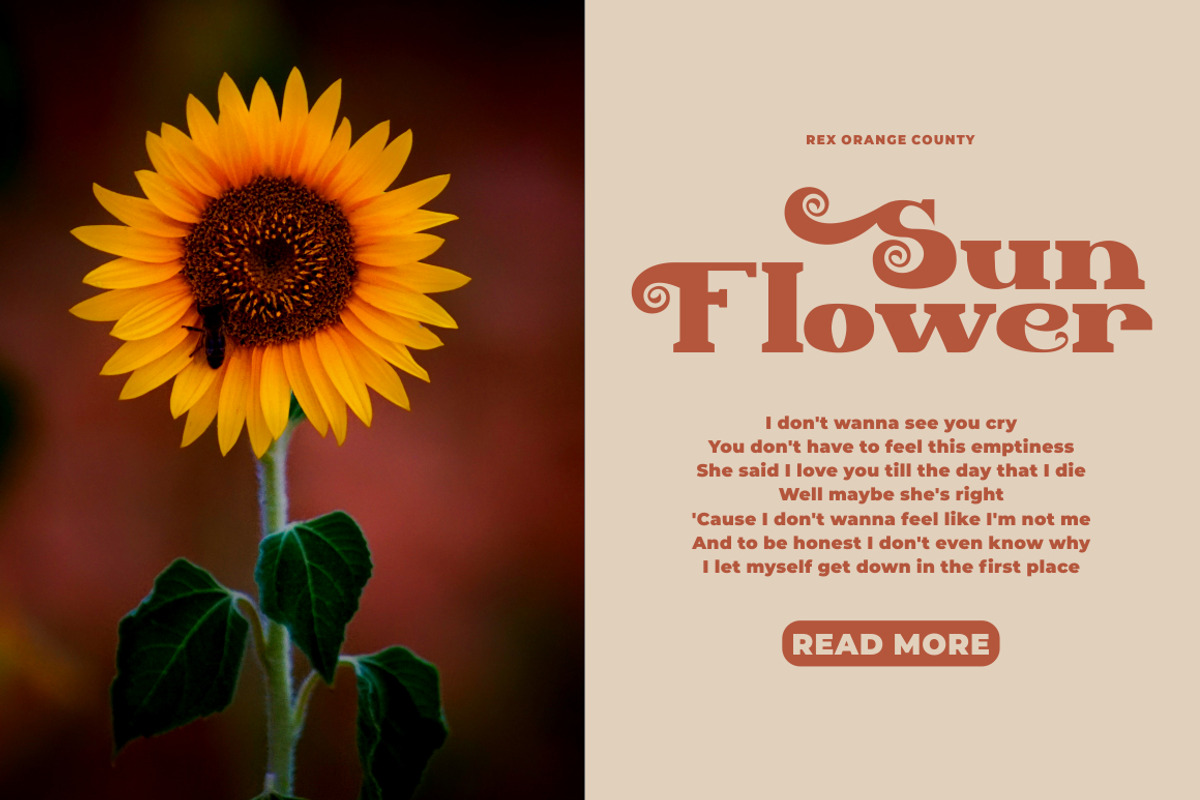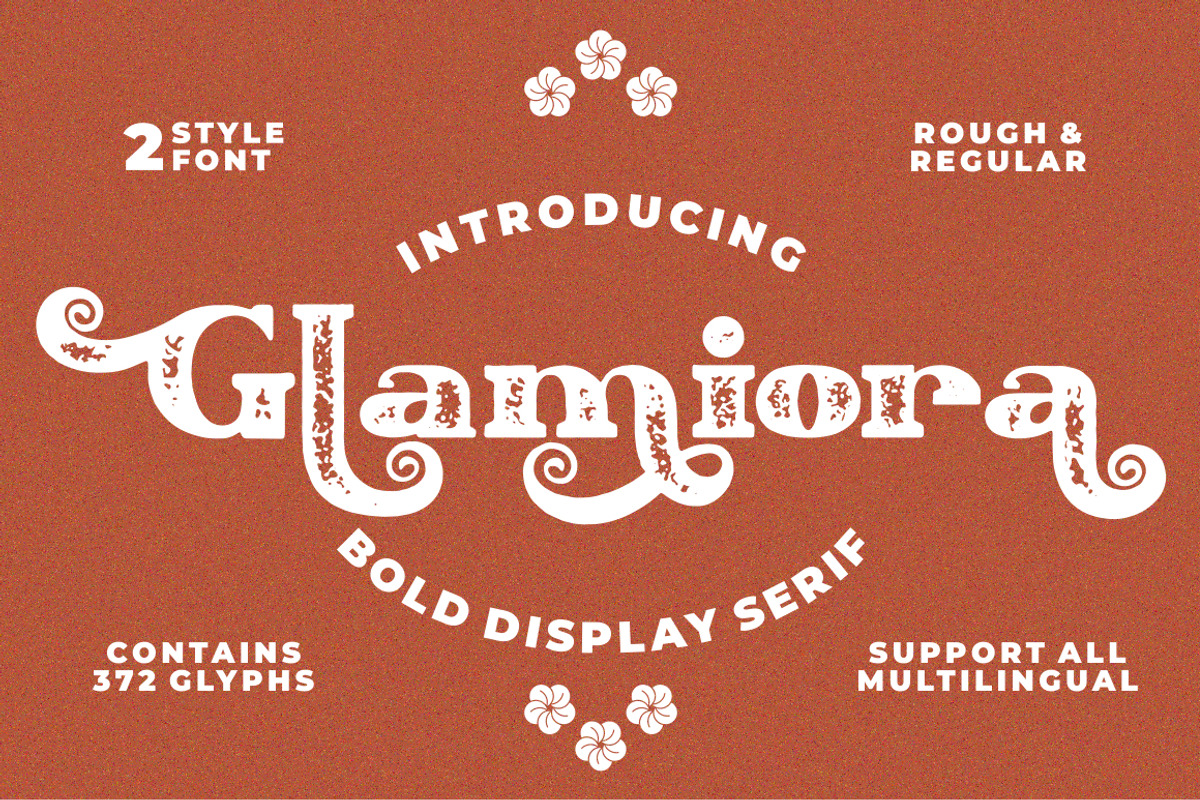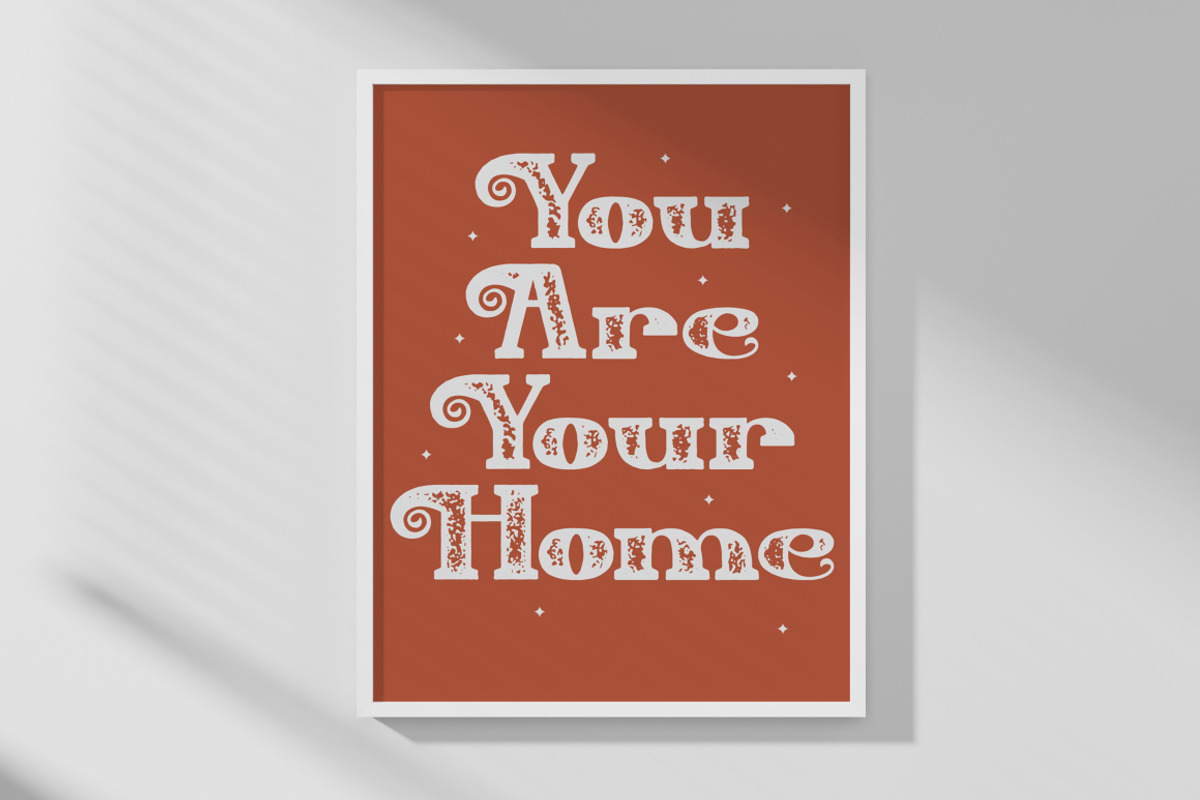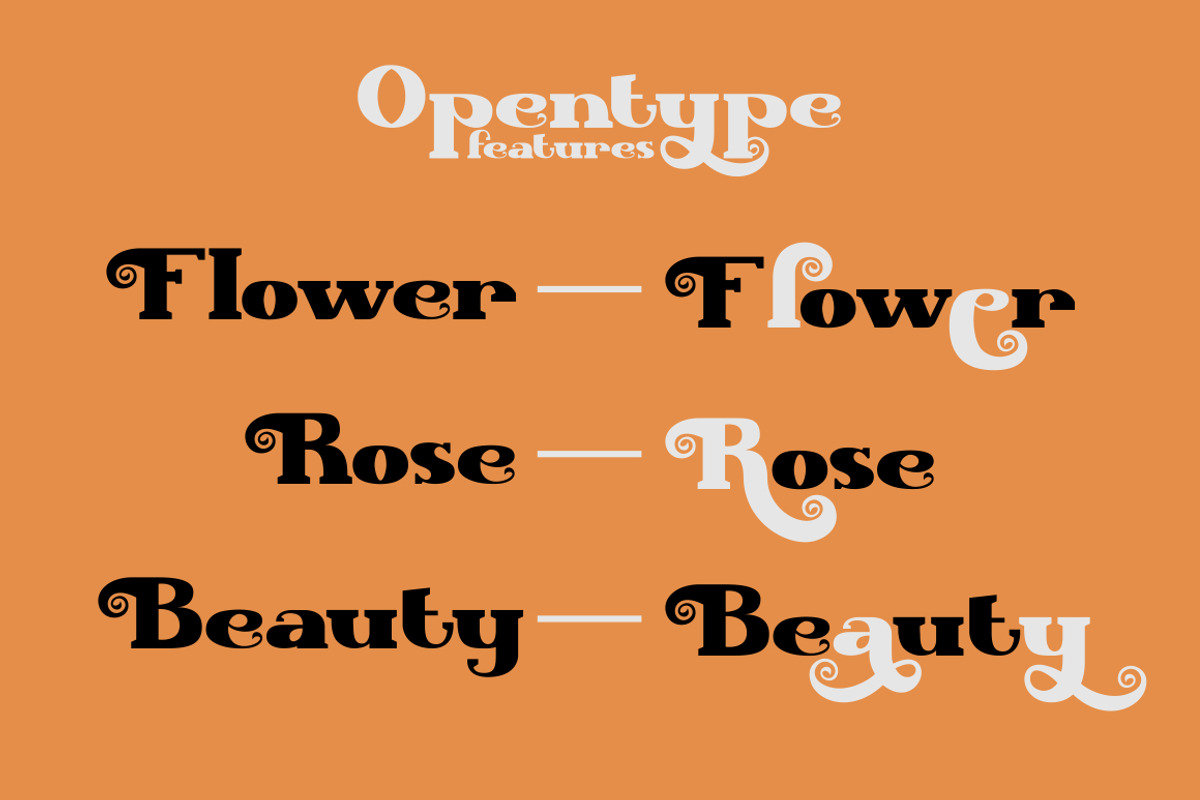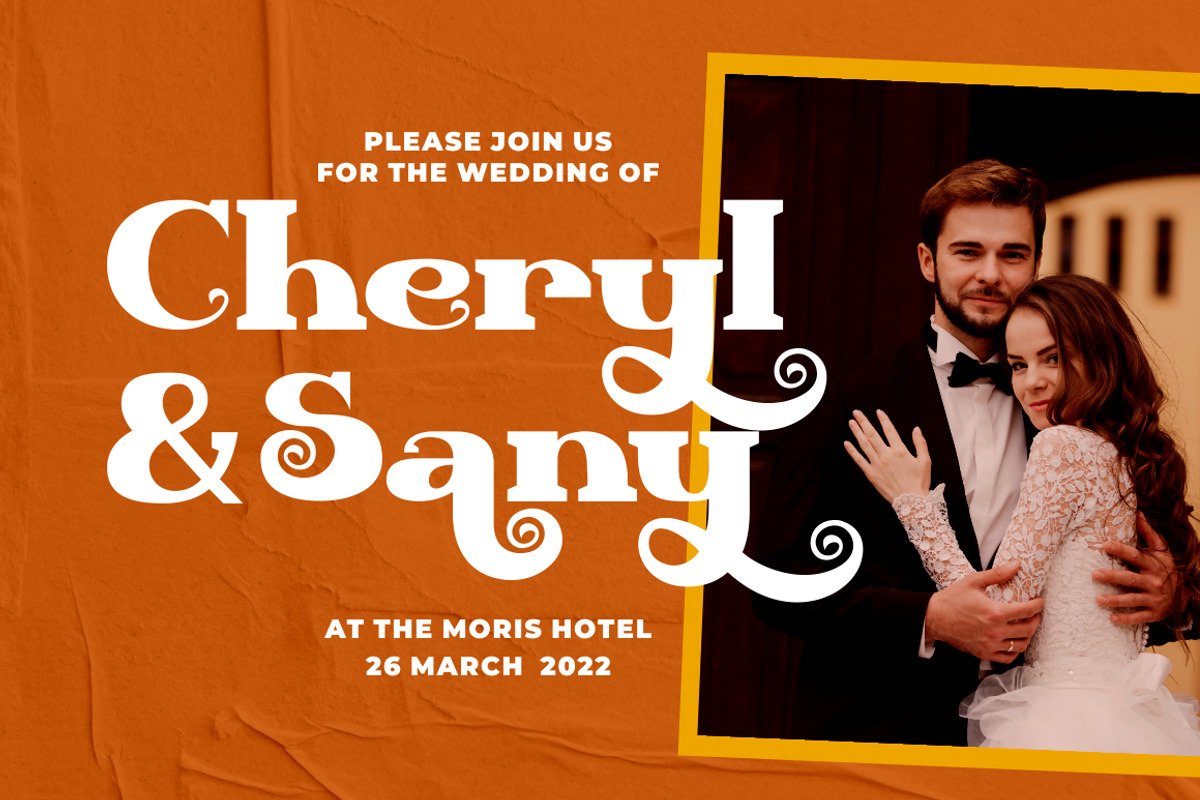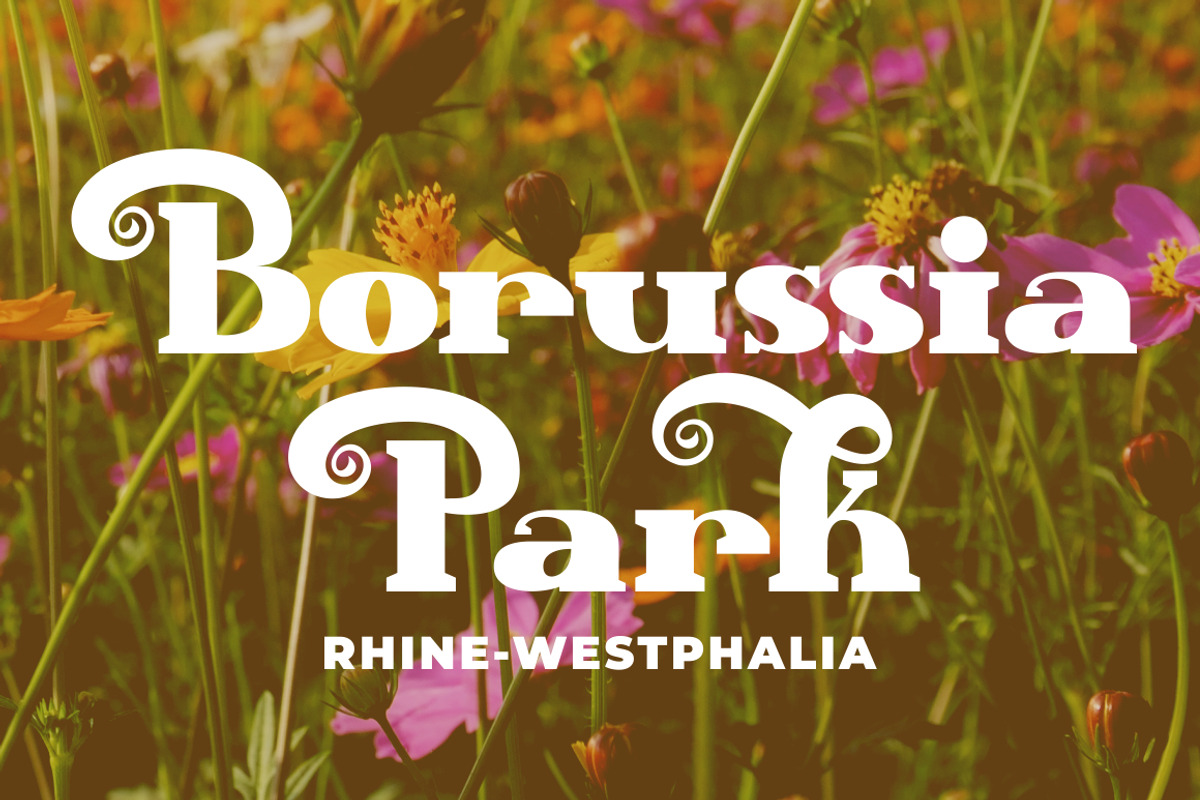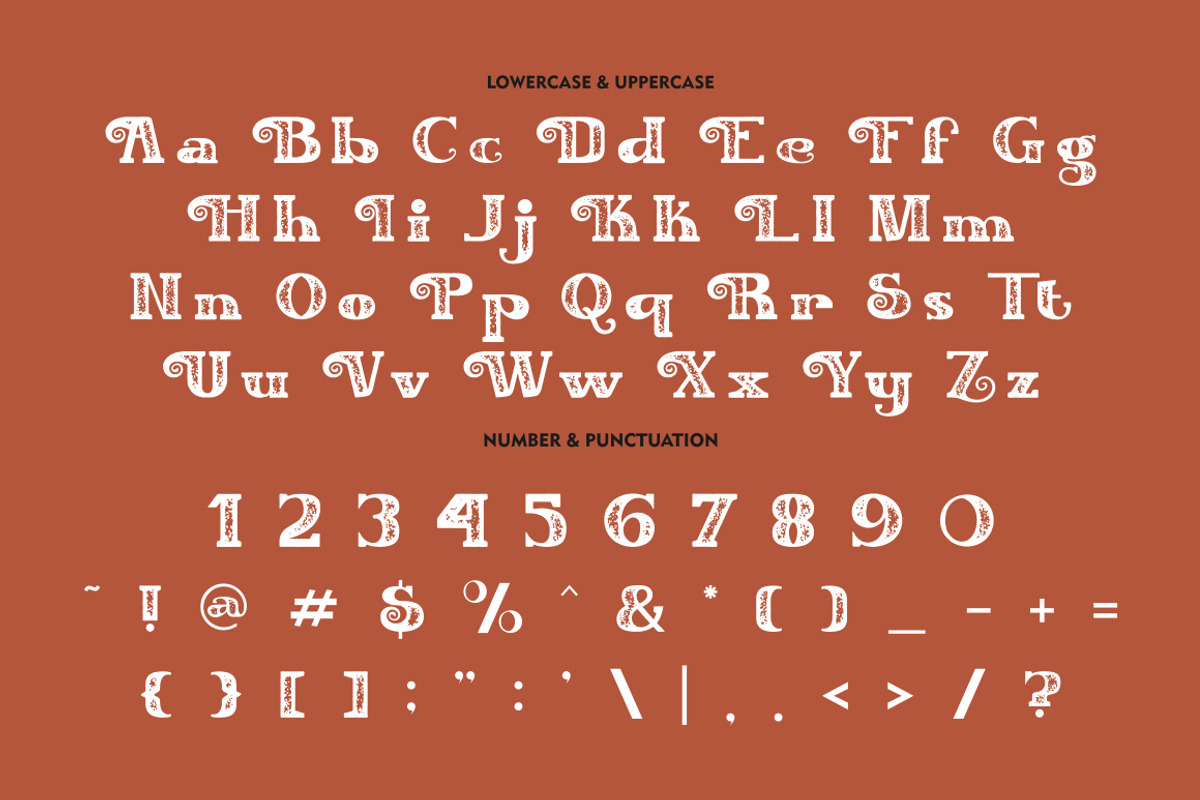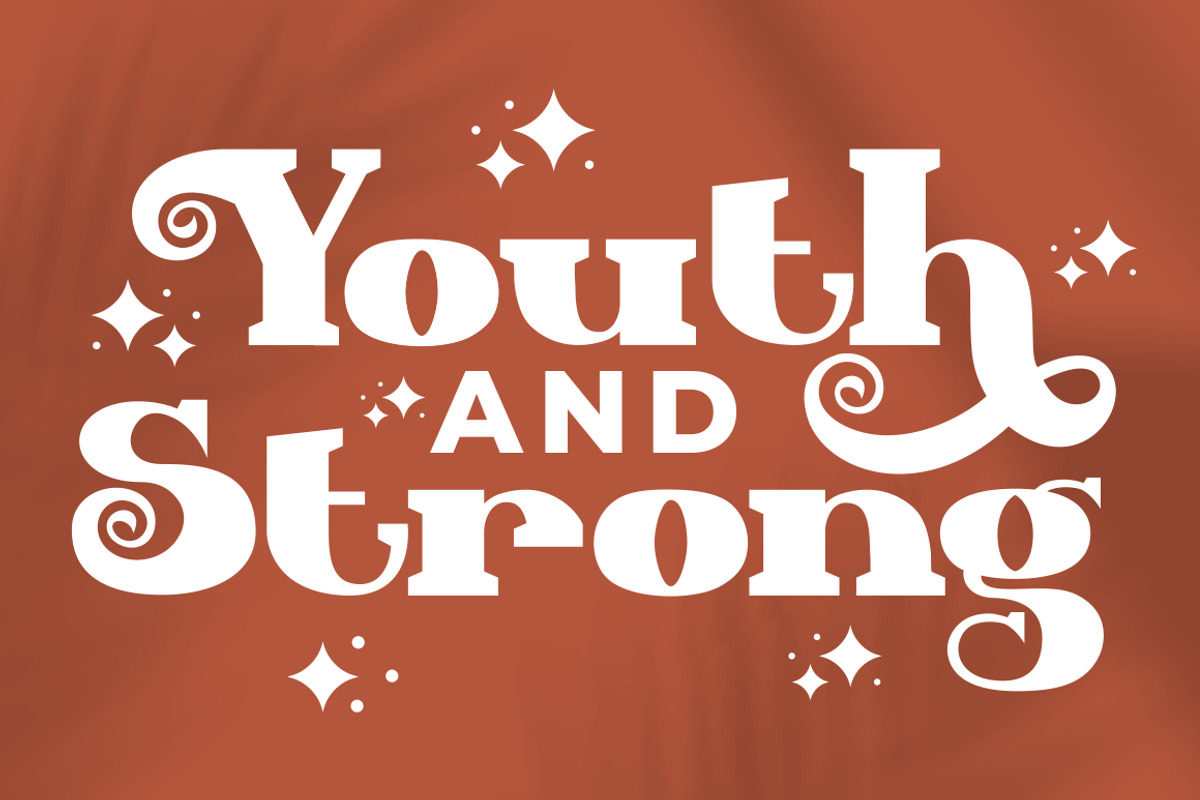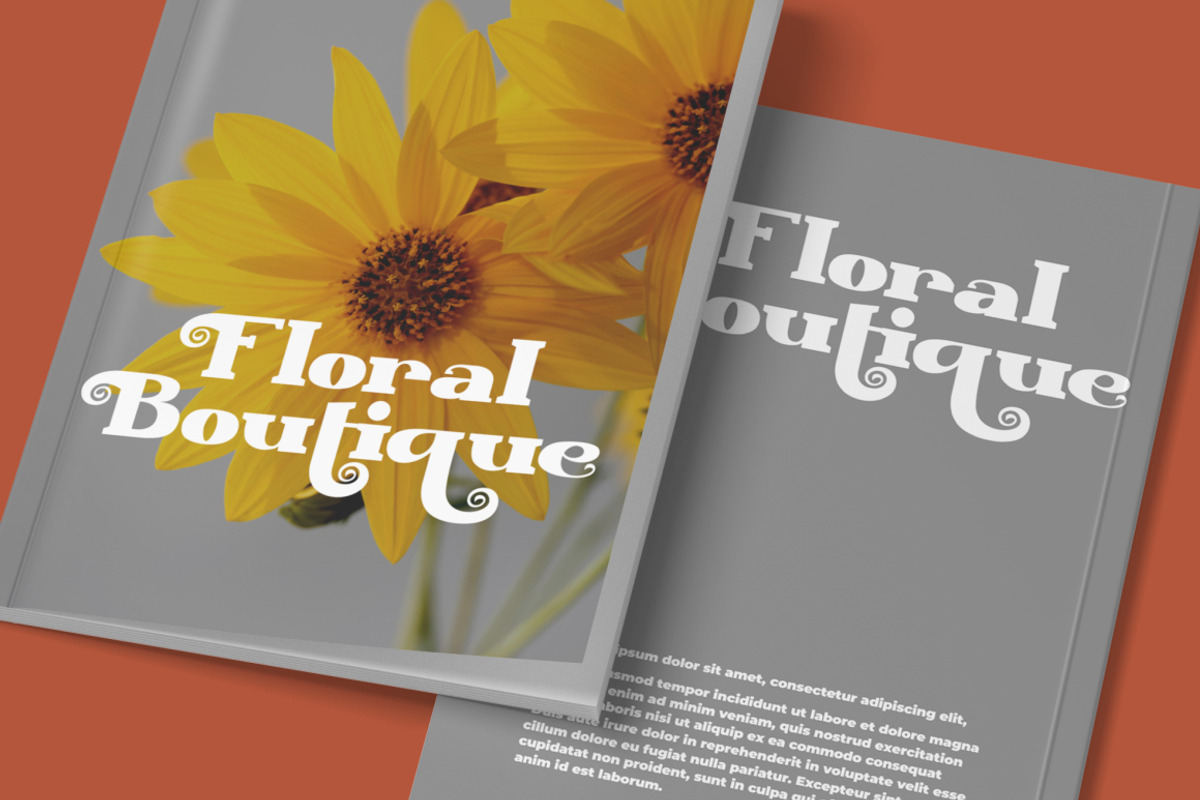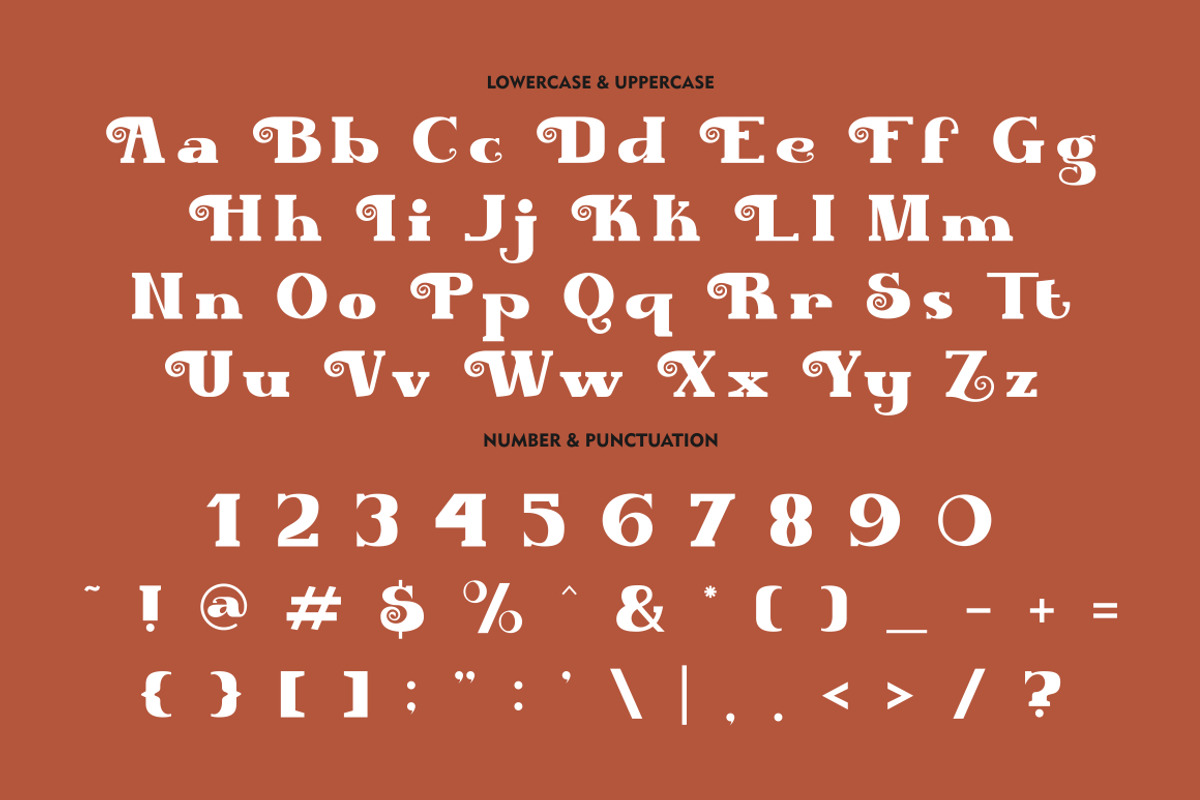
Glamiora - Bold Display Serif Font
Glamiora - Bold Display Serif Font. Heathfield is equipped with Swash, Stylistic and Titling alternates as well as with Standard and Discretionary Ligatures. Glamiora is a bold vintage with serif style, Glamiora have strong and soft display character.
And Glamiora is a stylish font that is both retro and bold font. It's thick curves give a 70s groovy vibe with the serif bringing it slightly back to traditional. Comes with alternatives and ligatures, helps to create stunning logos, quotes, posts, blog posts. branding projects, magazine imagery, wedding invitations, and much more.
The alternative characters were divided into several Open Type features such as Swash, Stylistic Sets, Stylistic Alternates, Contextual Alternates, and Ligature. The Open Type features can be accessed by using Open Type savvy programs such as Adobe Illustrator, Adobe InDesign, Adobe Photoshop Corel Draw X version, And Microsoft Word. This font is also support multi language.
Comes with feature :
- Opentype (Alternates And Ligatures)
- Number, Punctuation And Symbols
- Multilanguage Support.